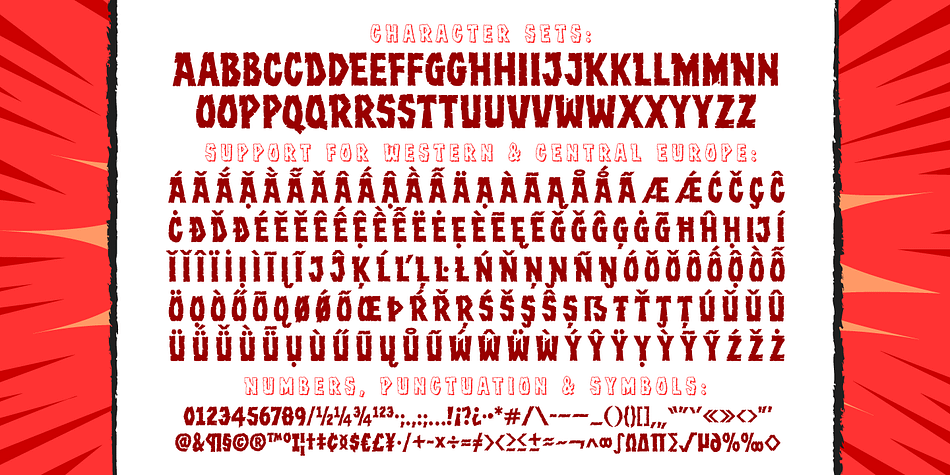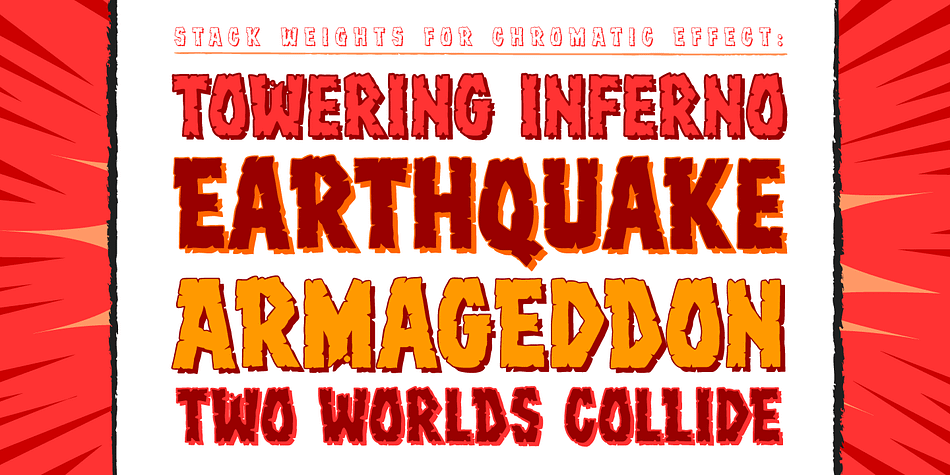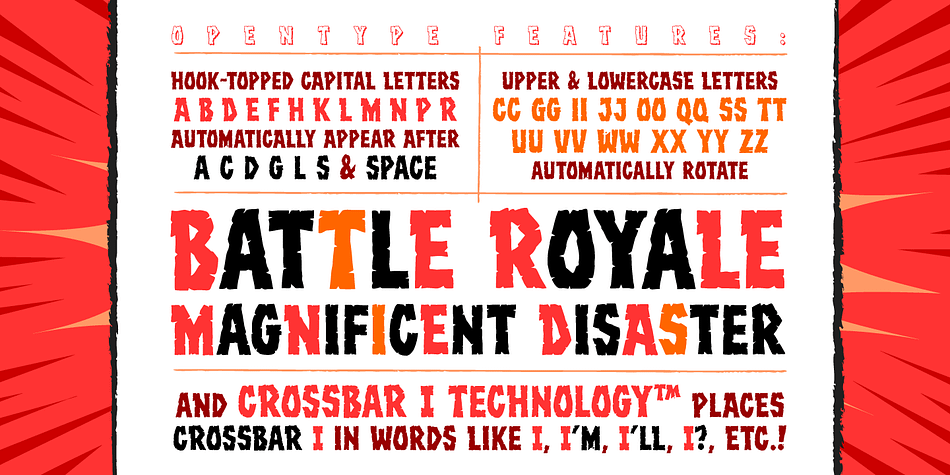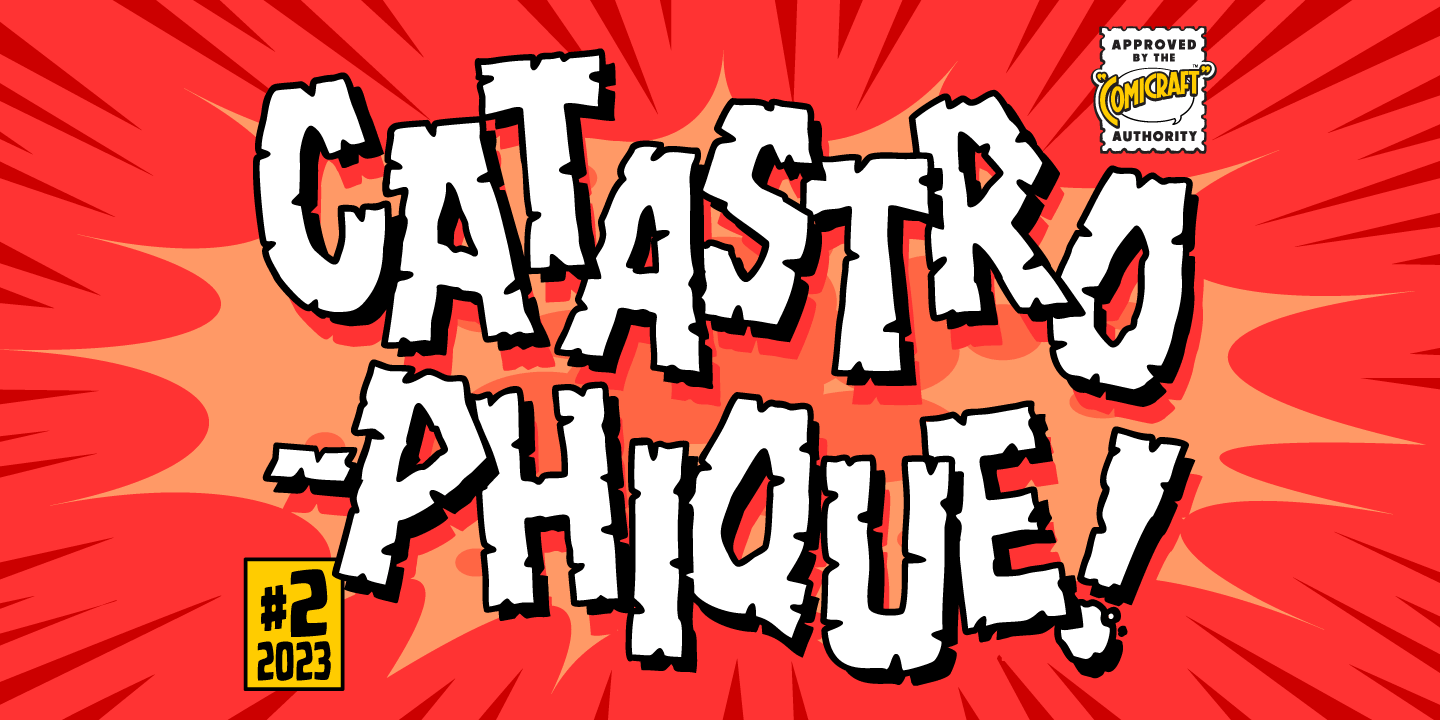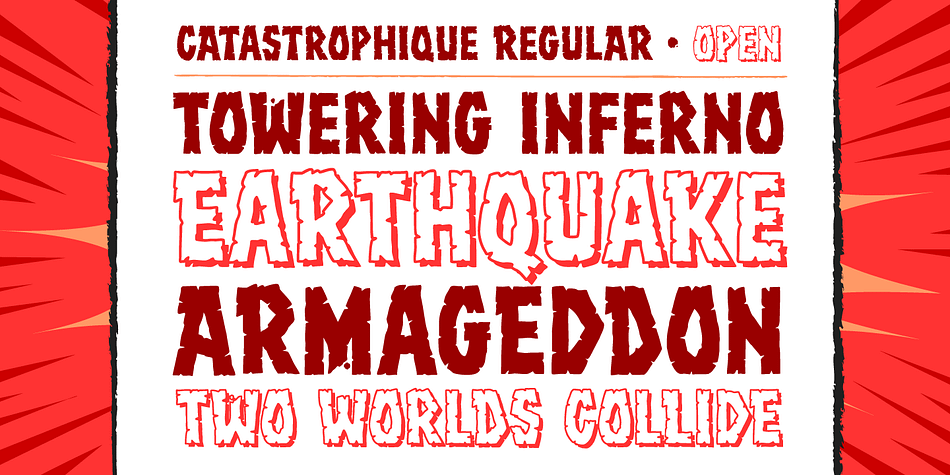
Catastrophique
Designed by Richard Starkings, John Roshell and Lisa Davighi, Catastrophique is a novelty font family. This typeface has two styles and was published by Comicraft.
It’s a Towering Inferno of a Font! It’s a Poseidon Adventure, an Earthquake and a Sharknado of Devastating Proportions! Don’t Look Up—these cracked and chunky letterforms are signifiers of a Magnificent Disaster!
A Perfect Storm of Tip Top Type by Comicraft’s Starkings & Roshell, with artist Lisa Davighi. Dante’s Peak has exploded and the Deluge has begun. Don’t save this font for the Day After, when worlds collide — Armageddon is Now!